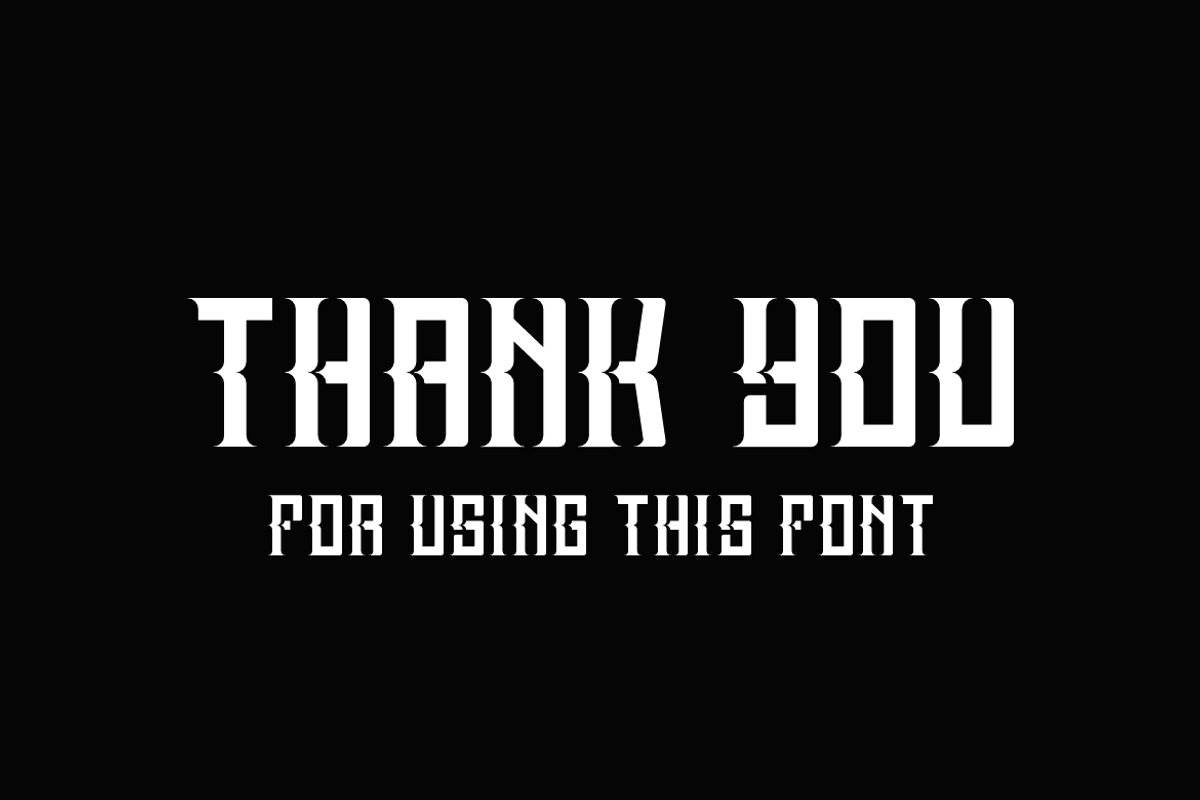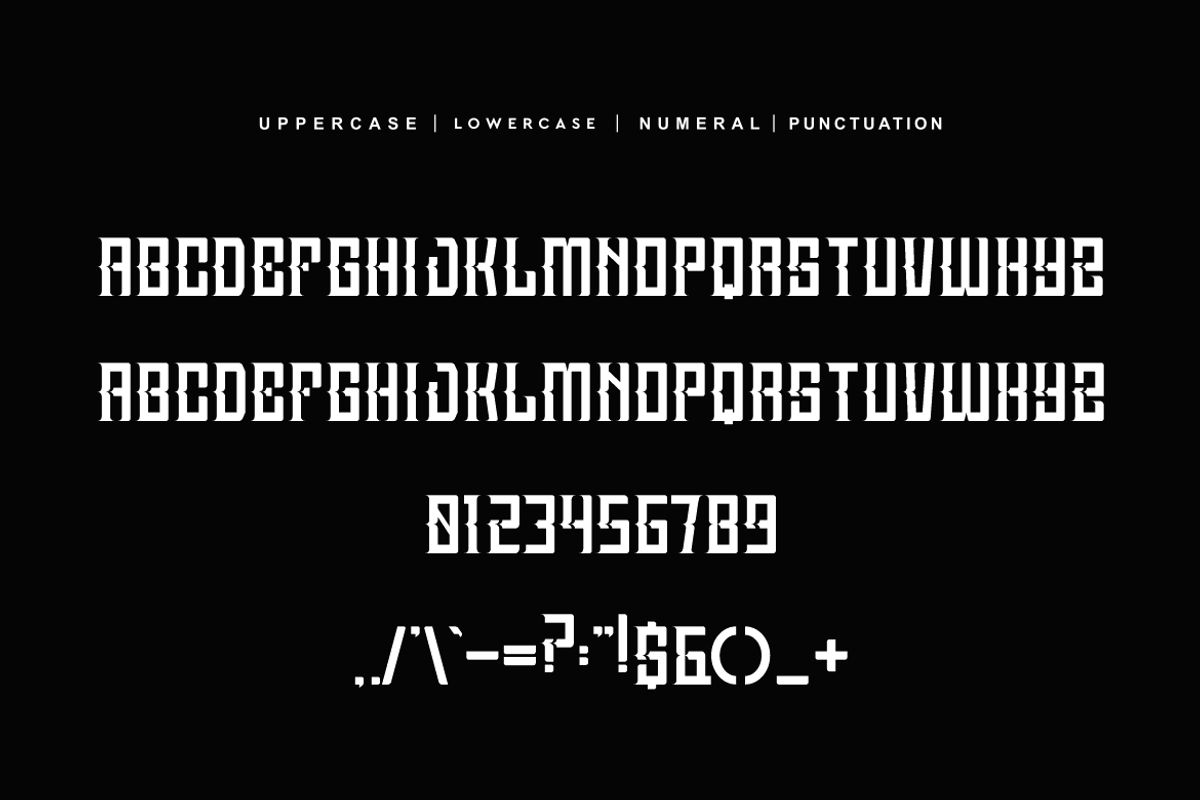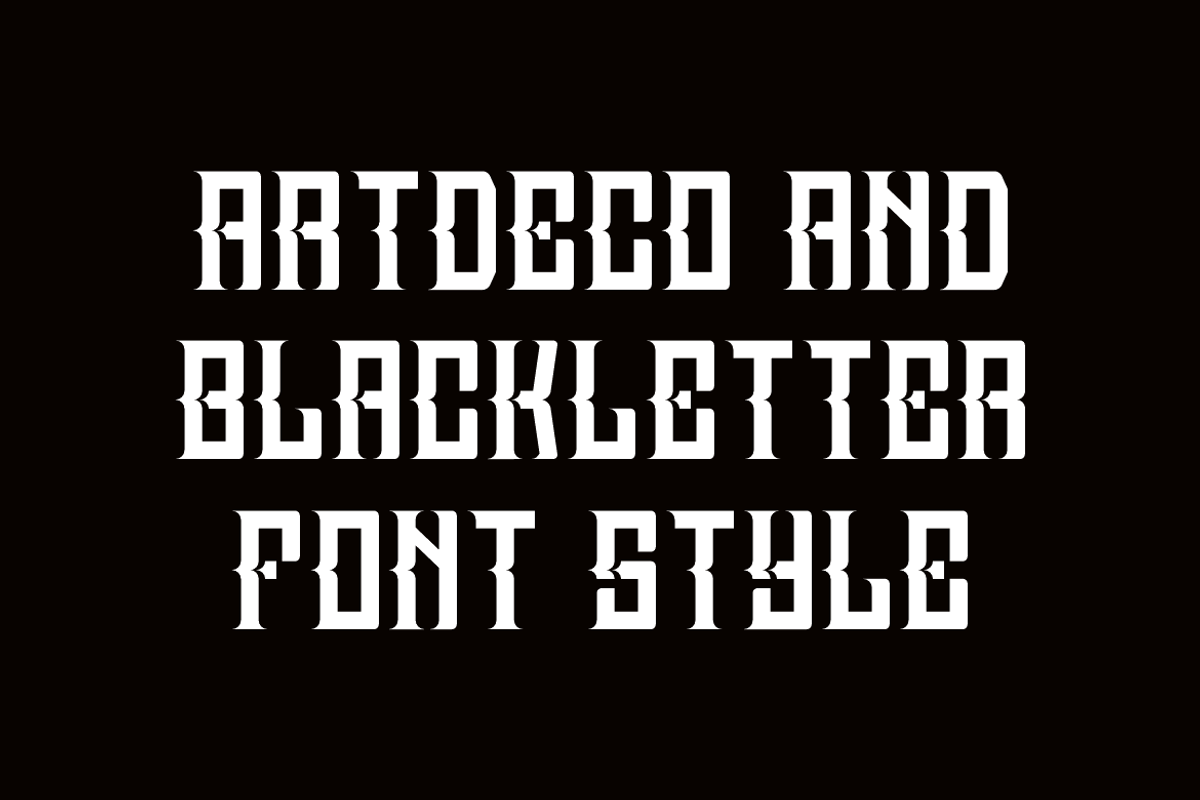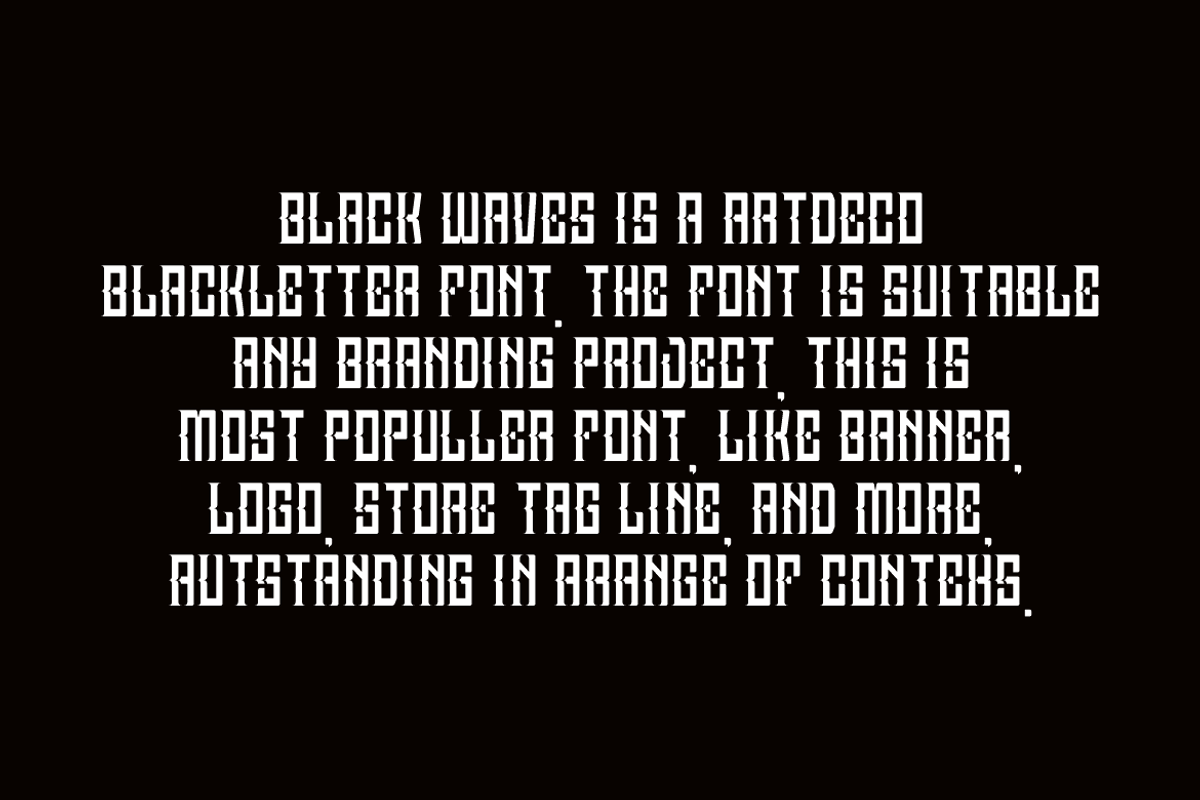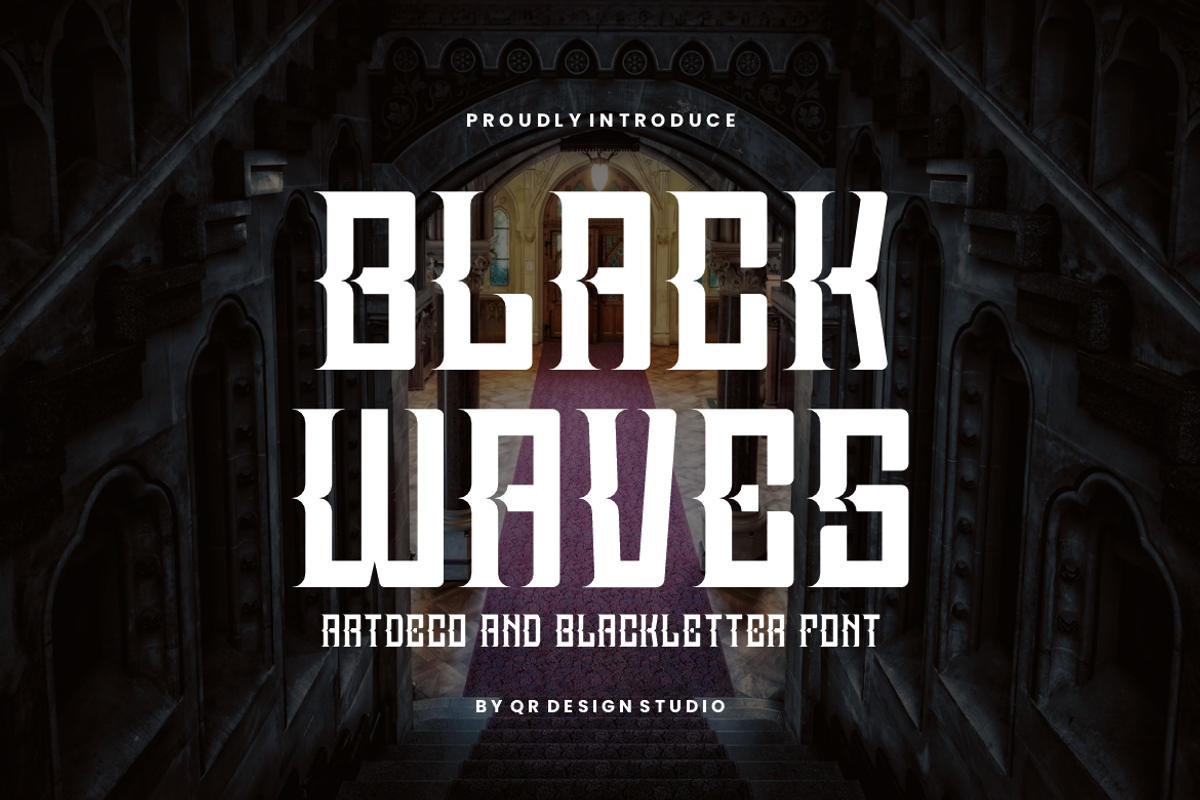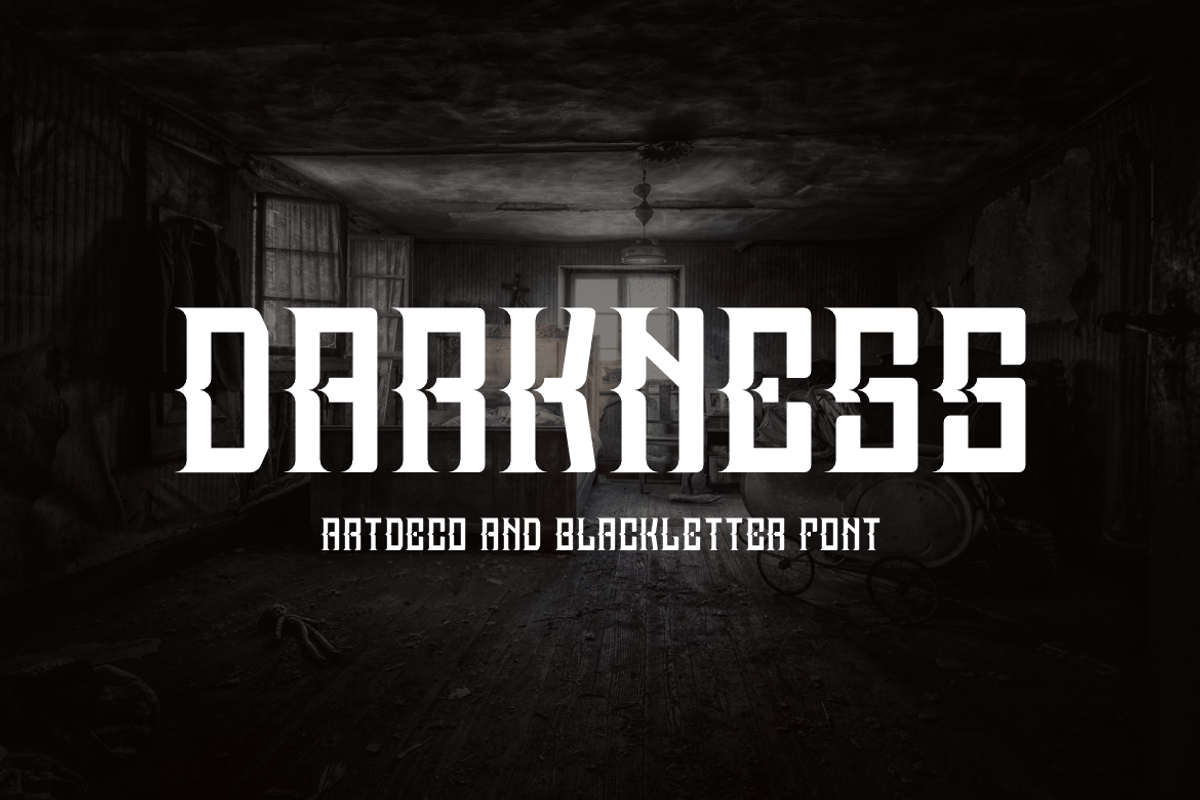
Black Waves - Artdeco & Blackletter
Black Waves Font is a decorative and authentic display font. The font is suitable for any branding project like poster, logo, sport, and many more. Outstanding in a wide range of contexts.